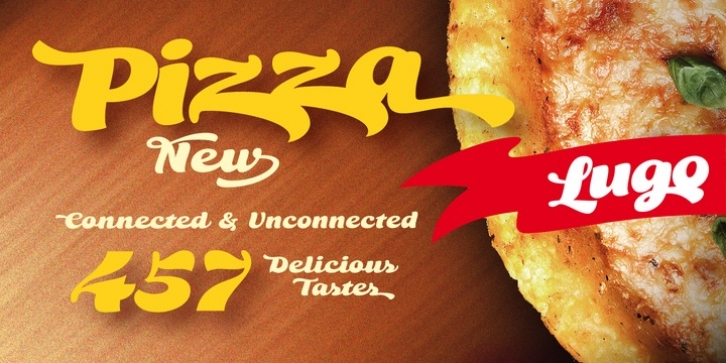
Publisher: Eurotypo
Lugo was designed by Olcar Alcaide and published by Eurotypo. Lugo contains 1 style.
The font 'Lugo' is a heavy typeface designed for use in headlines and caption text.
Their design has a strong visual impact, a persuasive and seductive personality throughout its organic shapes.
This is a versatile and expressive font. Lugo can create an appealing atmosphere, conveying a gamut of message and emotions. It is well suited in the jobbing areas like packaging, logotypes, magazines, web pages and advertising, etc.
Lugo has all the advantages of OpenType features that allow a variety of combinations: You may choose to set types in connected or unconnected ways, being used as body text or headlines for its good legibility, visual impact and accurate kerning. It has more than thousand glyphs: swashes, standard and discretional ligatures, stylistics and contextual alternates, old style numerals, word ending and tails. It has also an extended character set to support Central and Eastern European as well as Western European languages.